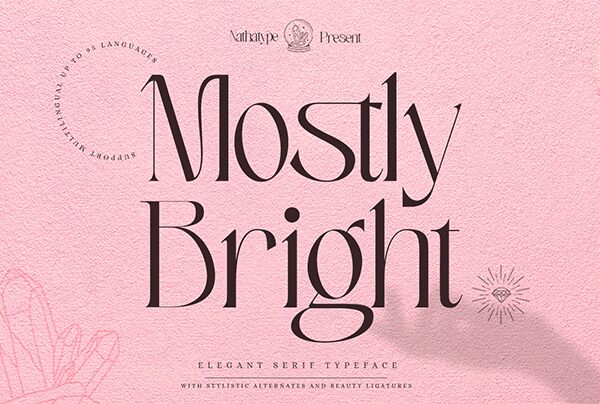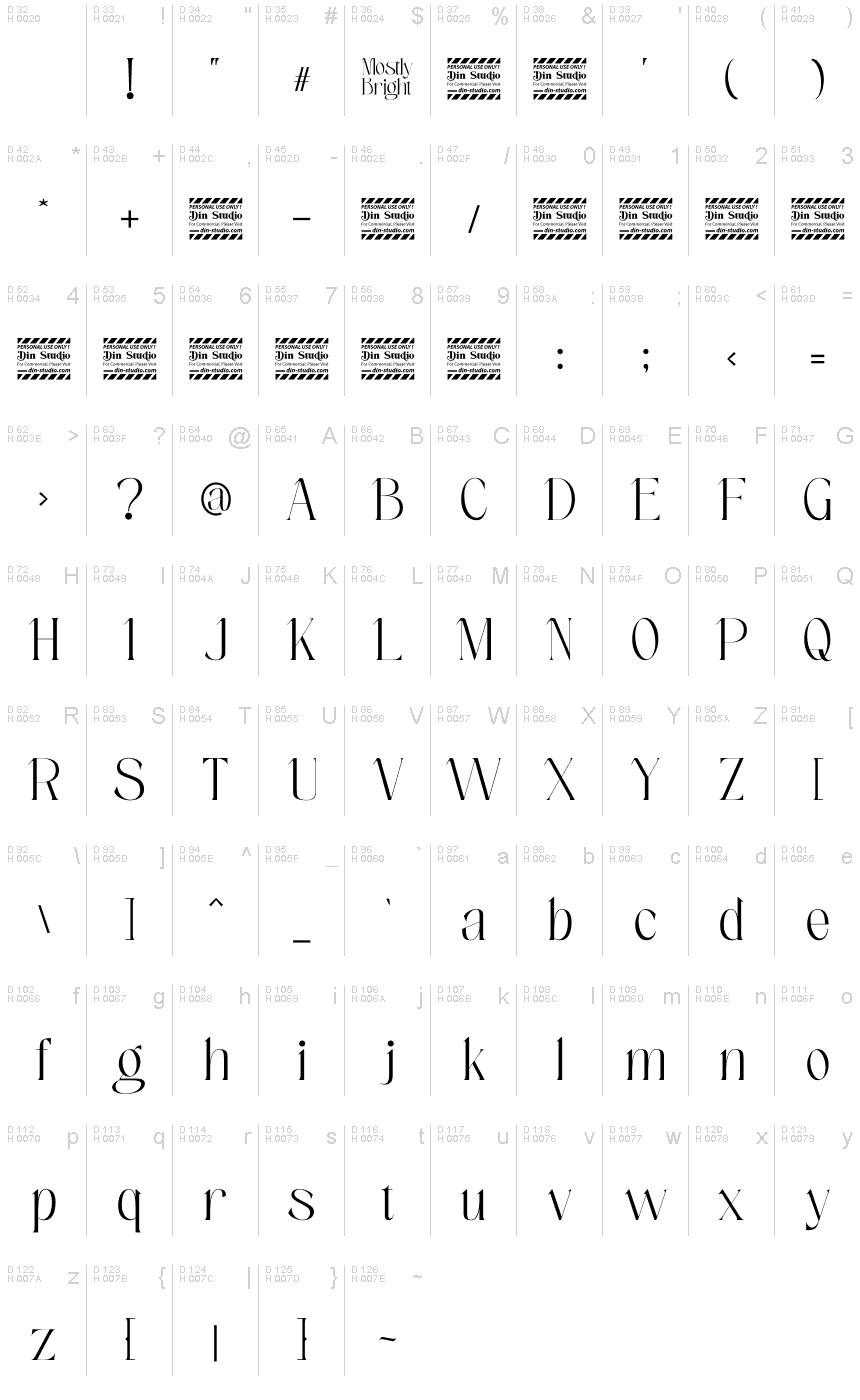
Mostly Bright, a captivating serif font by Din Studio, is the perfect choice for projects that require an elegant touch. With its semi-light weight and semi-condensed width, this font exudes sophistication and versatility.
Whether you're designing wedding invitations, creating editorial layouts, or crafting timeless logos, Mostly Bright will effortlessly elevate your work. Its refined serifs and delicate curves add a touch of class to any project, making it ideal for high-end branding, book covers, and fashion magazines.
Let Mostly Bright be the shining star in your next design endeavor.